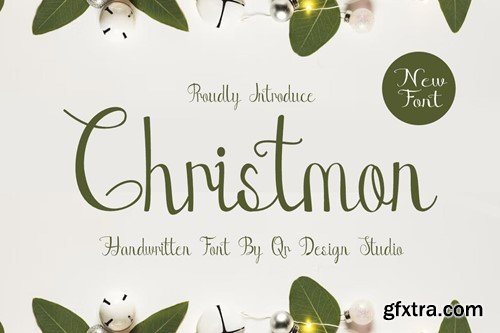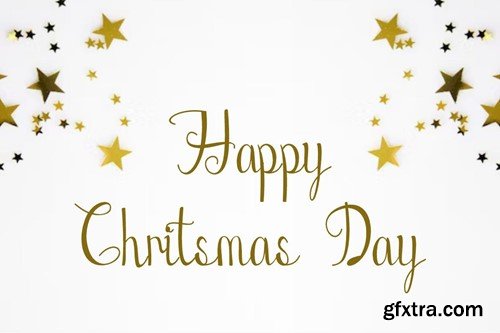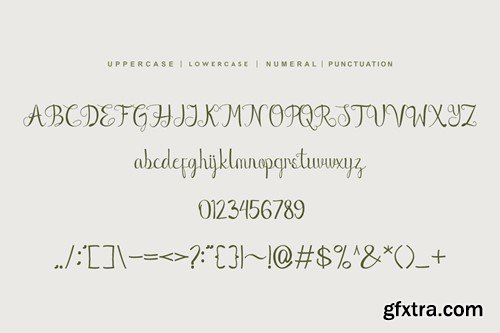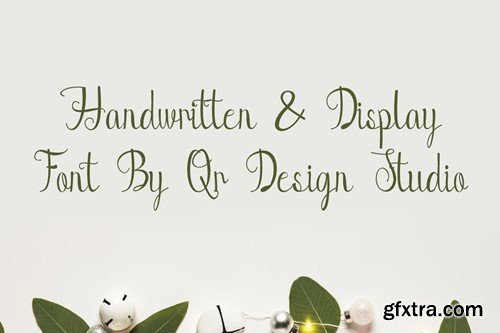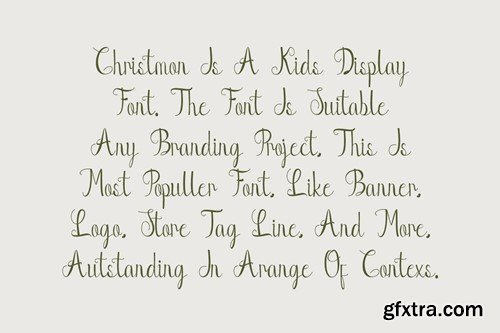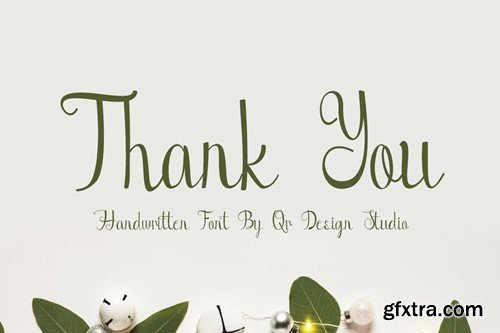
克里斯蒙 - 圣诞字体 97HWUAS
Christmon - Christmas Font 97HWUAS
Christmon - Christmas Font
Christmon - Christmas Font is a bold and authentic display font. The font is suitable for any branding project like Christmas, poster, logo, sport, and many more. Outstanding in a wide range of contexts.